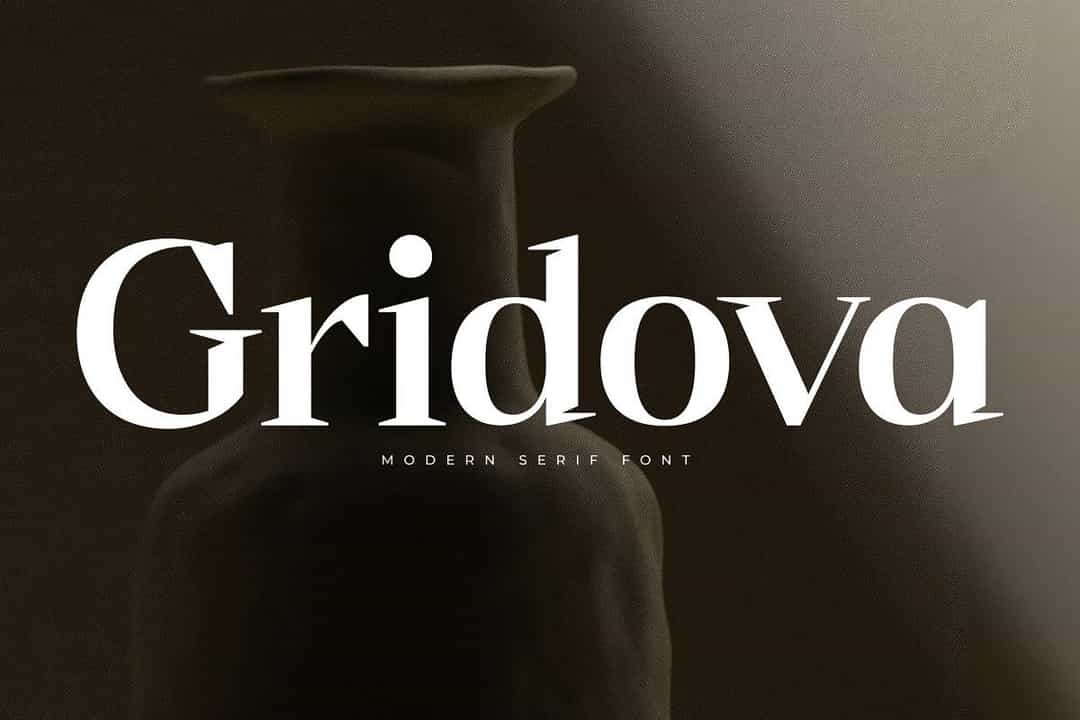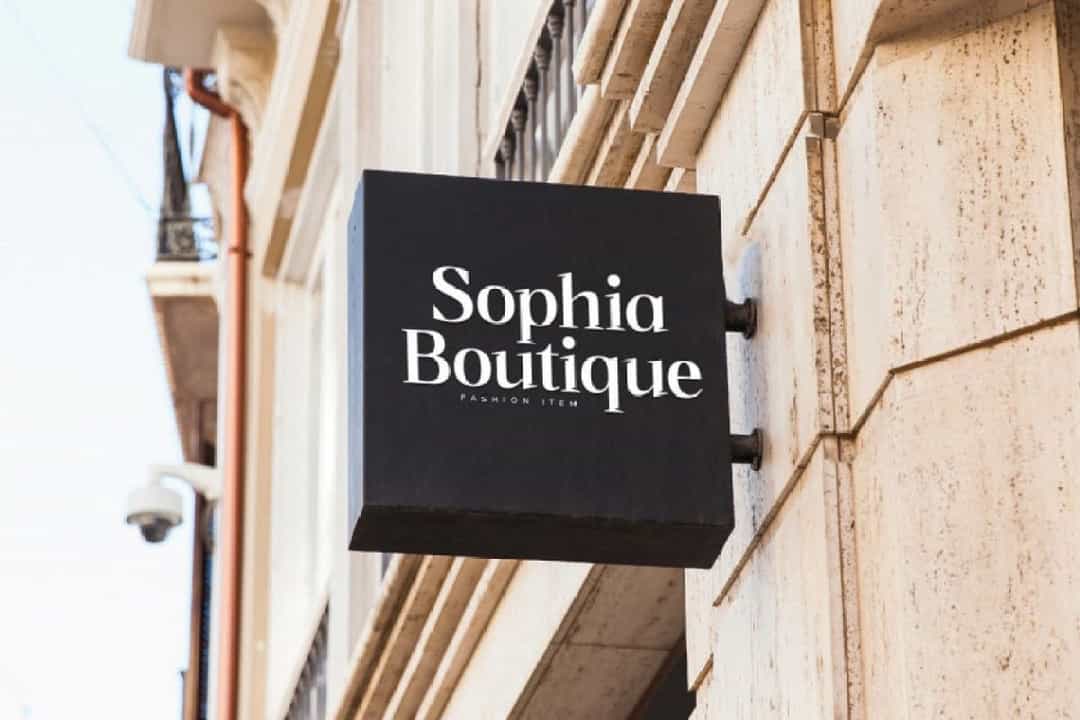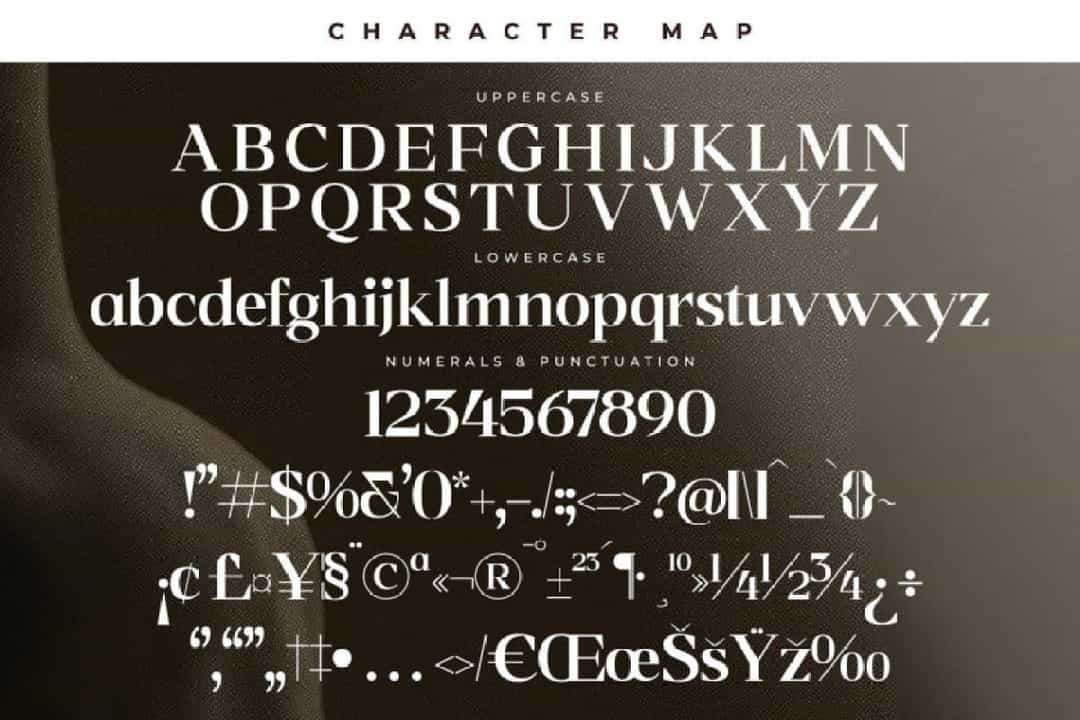
Gridova is a modern serif font exuding sophistication and fashion. Featuring crisp lines and symmetrical proportions, Gridova’s crisp lines and balanced proportions make it suitable for printing as well as digital designs, adding elegance and modernity. Perfect for editorial layouts and branding materials; Gridova adds classic elegance and style.